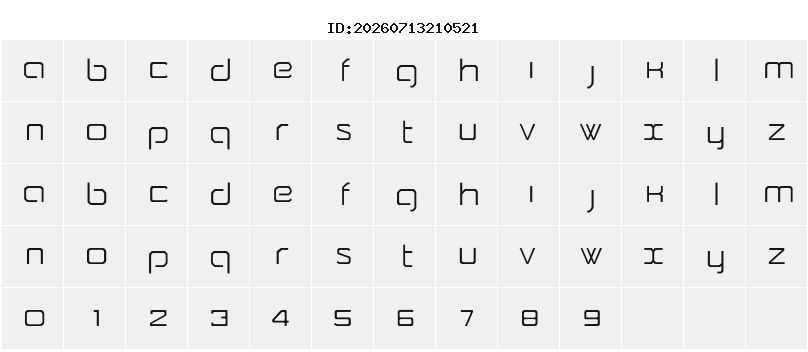
Camomile Preview
• Font Name: Camomile
• Full Font Name: Camomile
About Camomile.otf
Camomile.otf is a modern, elegant sans-serif font designed for ultimate readability and visual harmony. Perfect for branding, headlines, web design, and print materials.